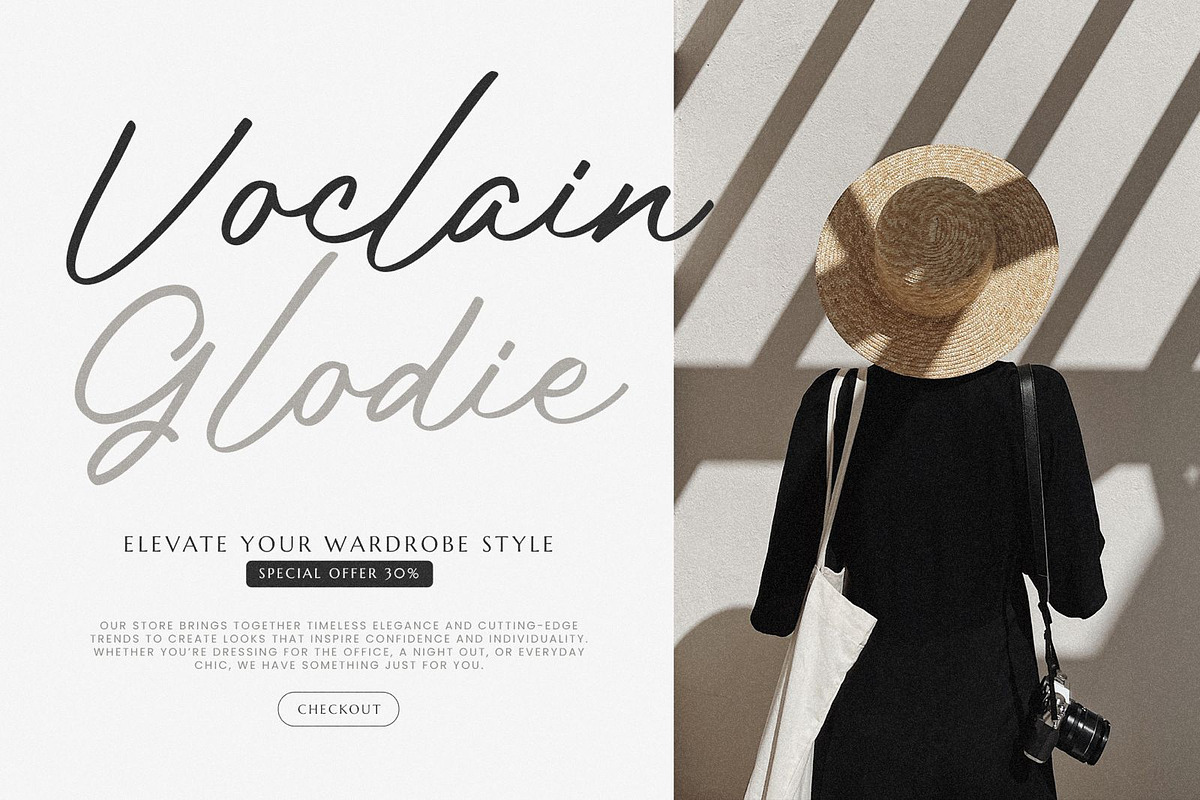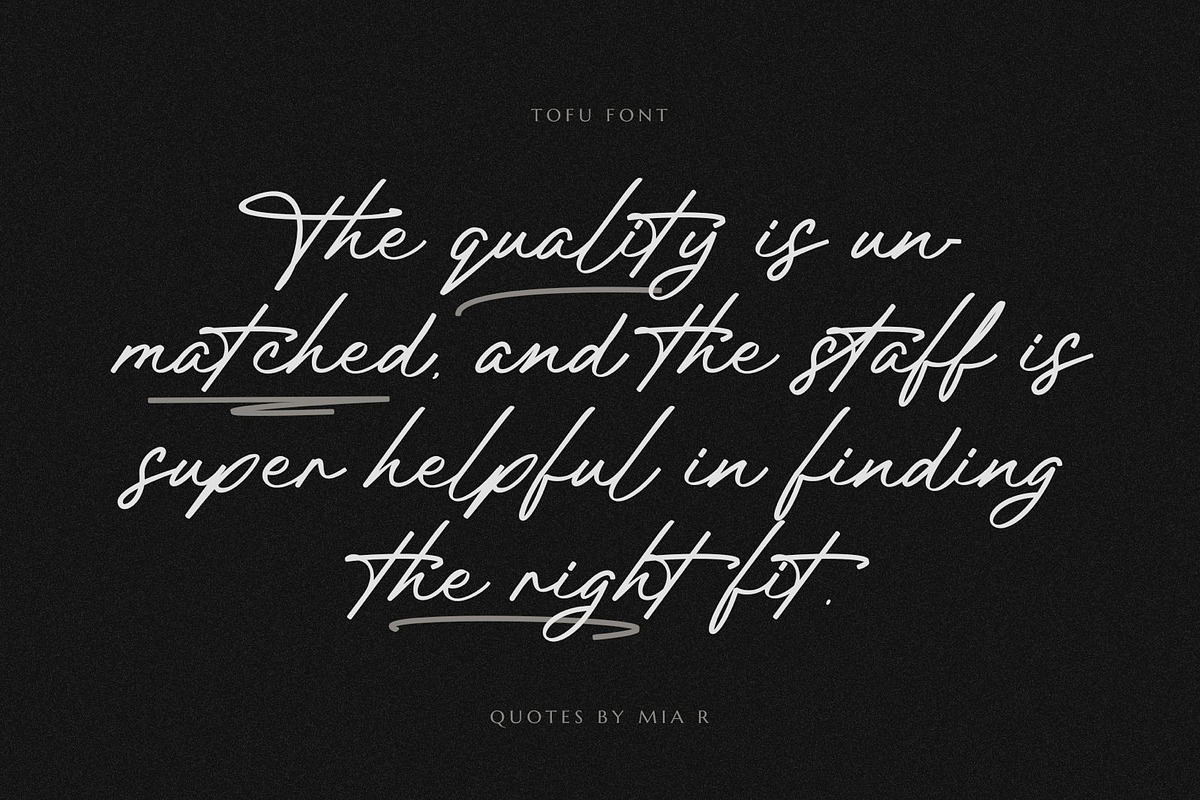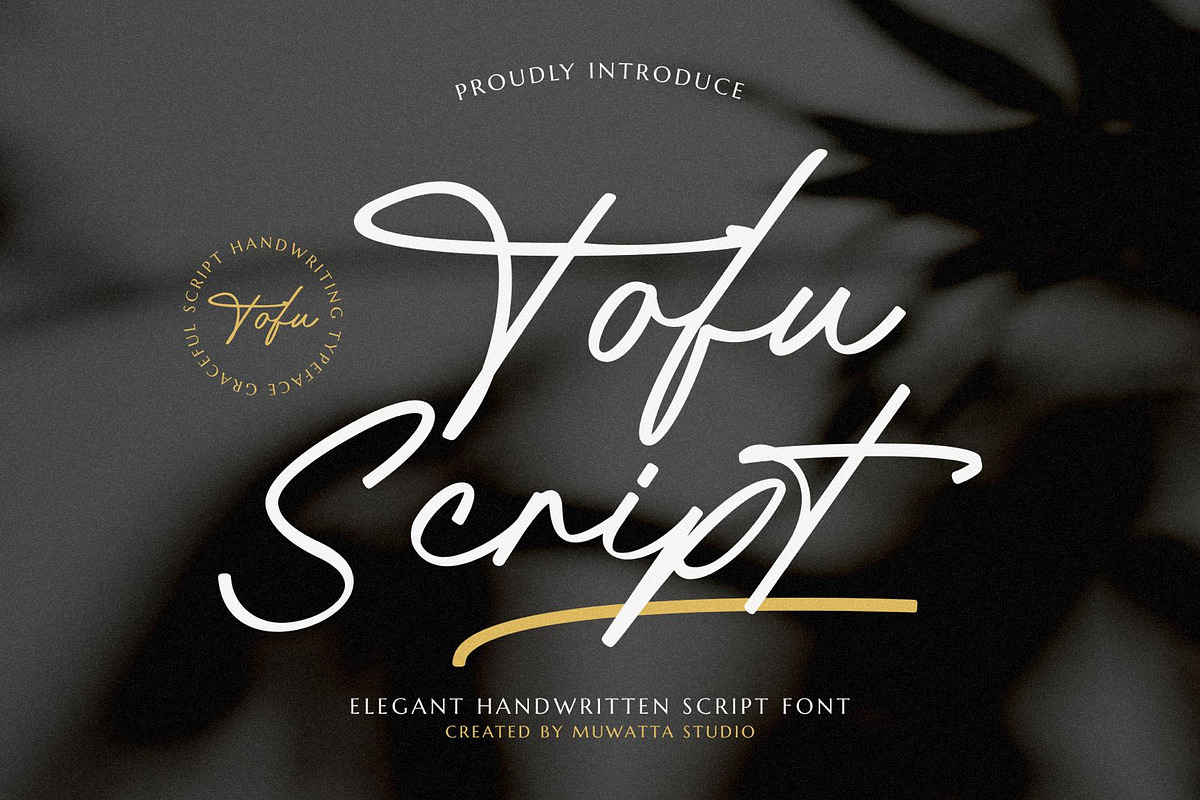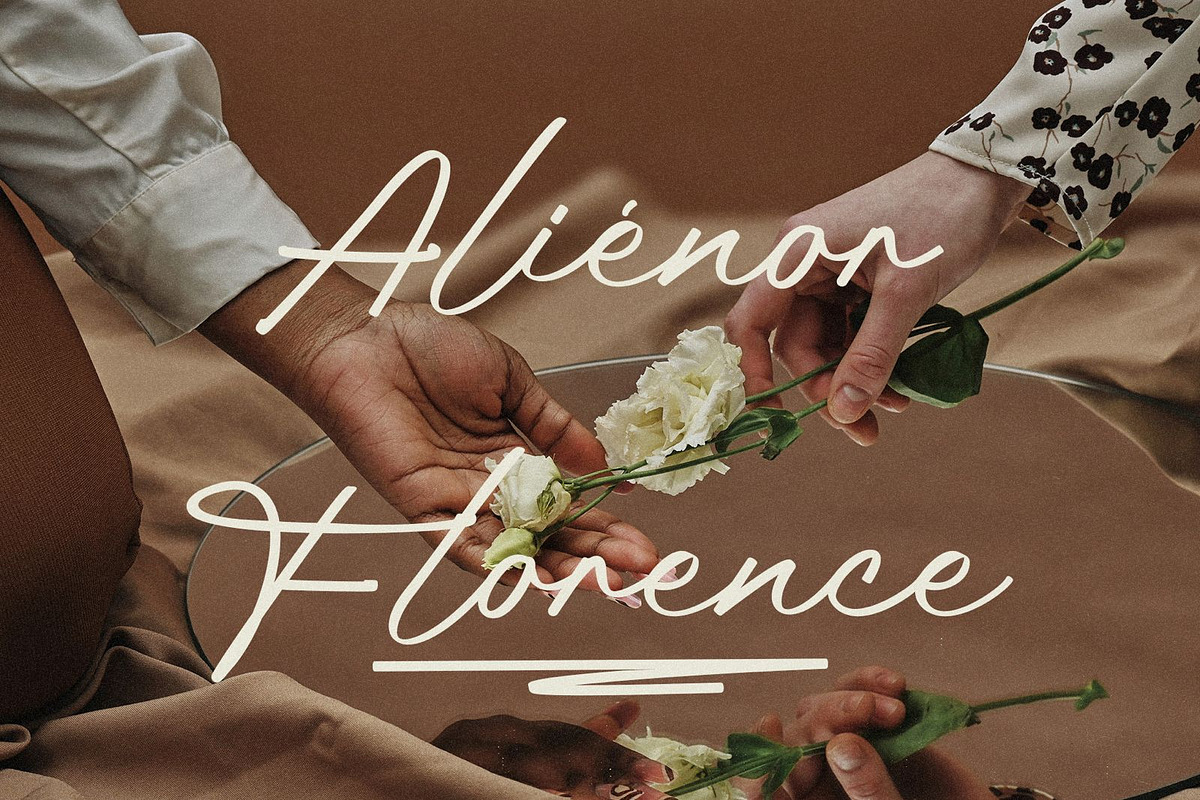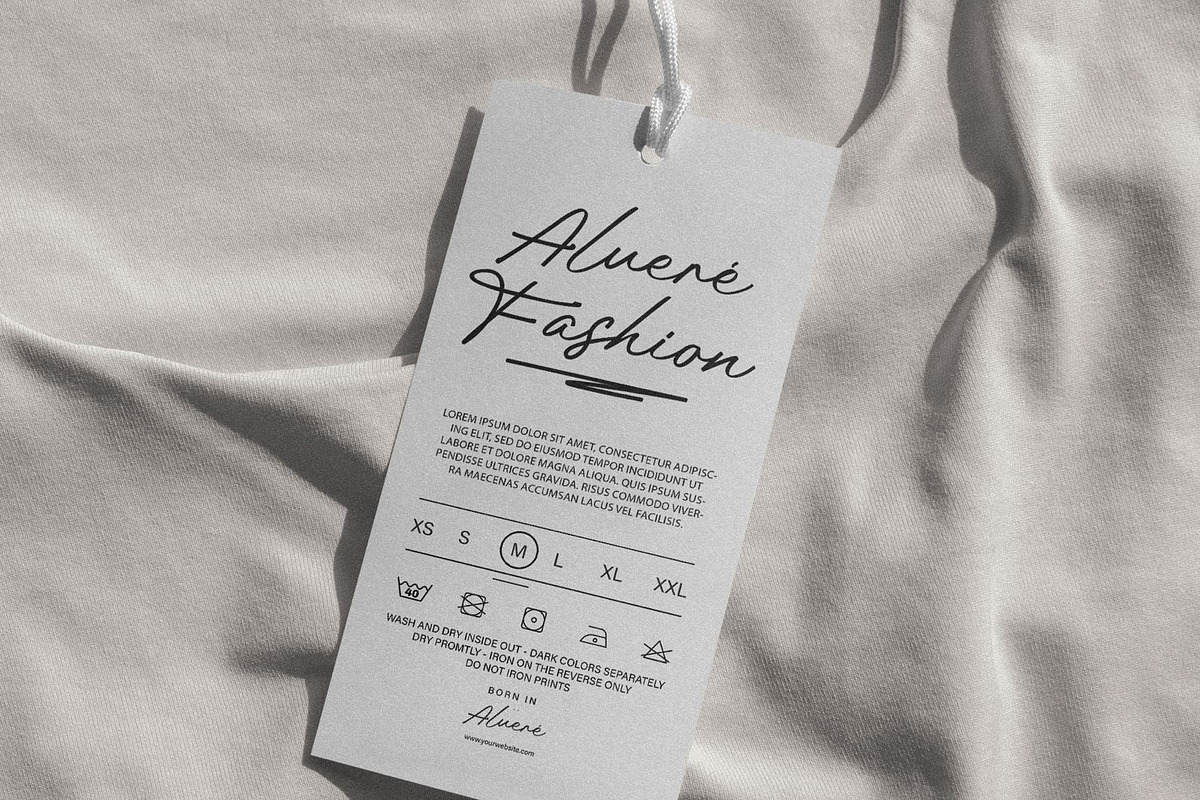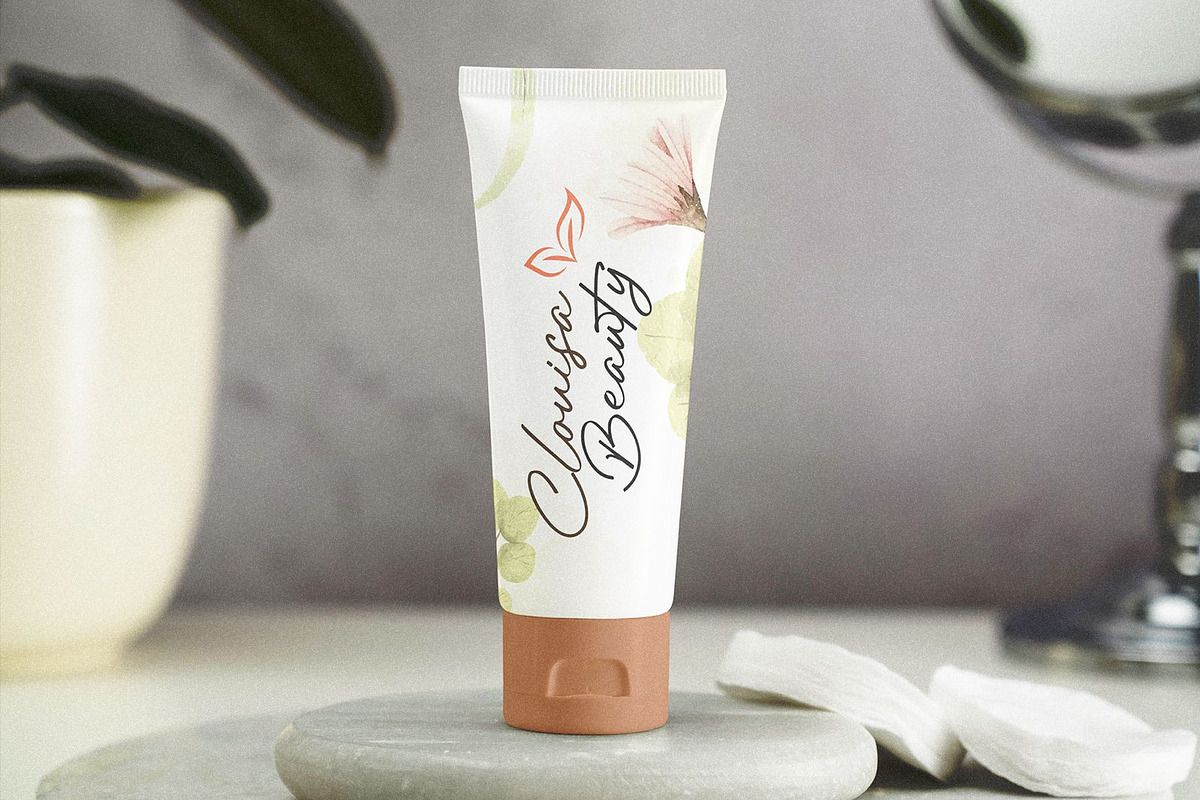
Tofu Script
Tofu is a handwritten font with a sleek, modern, and stylish design. Add it to your logos, brands, products, websites, and more, and they will capture everyone's attention!
-Full alphabet with Uppercase and Lowercase A-Z for script
-Numbers for all fonts
-Punctuation and symbols for all fonts
-Swash script
-Ligature Lowercase script
-Multilingual support all fonts